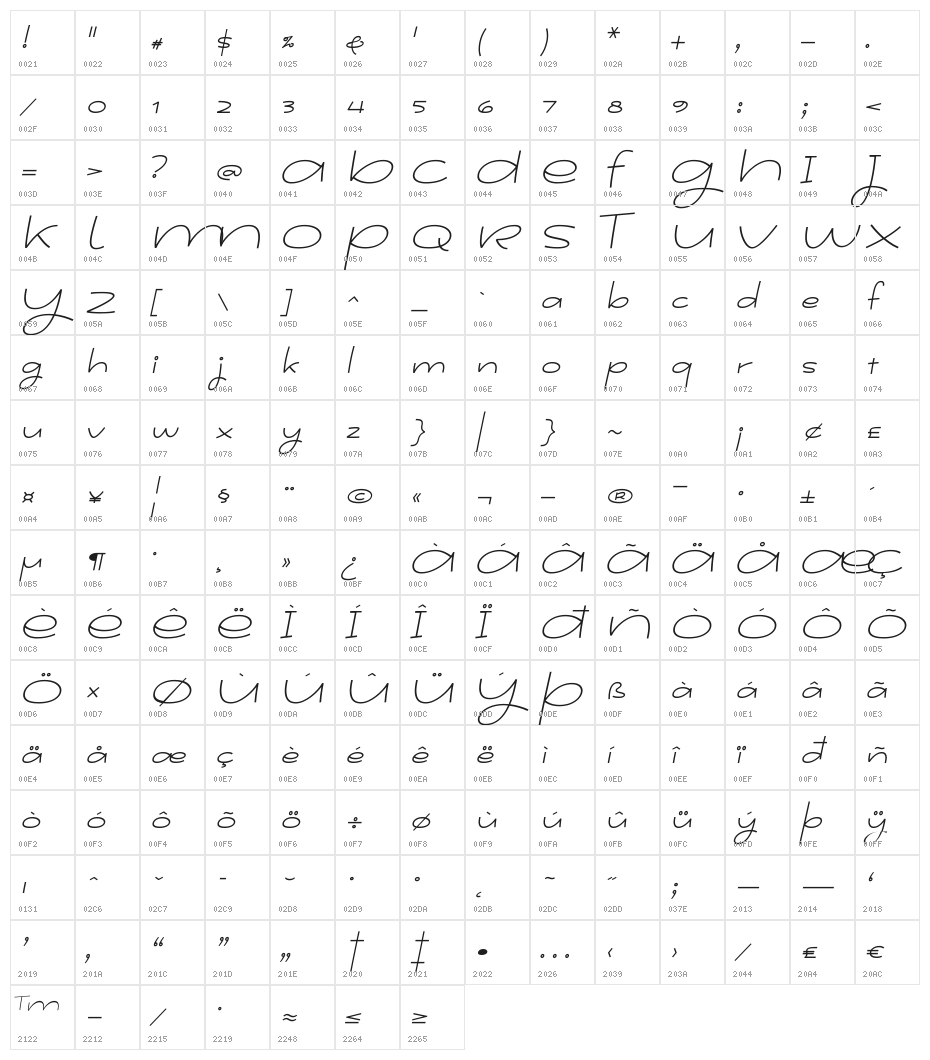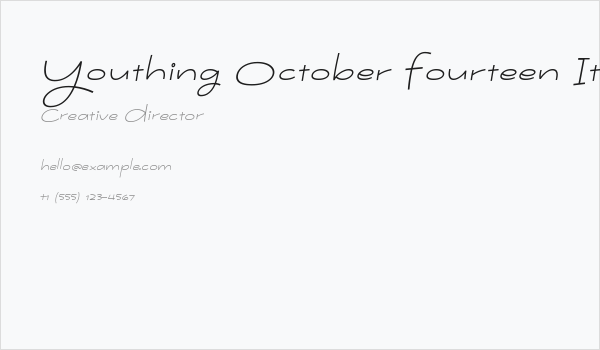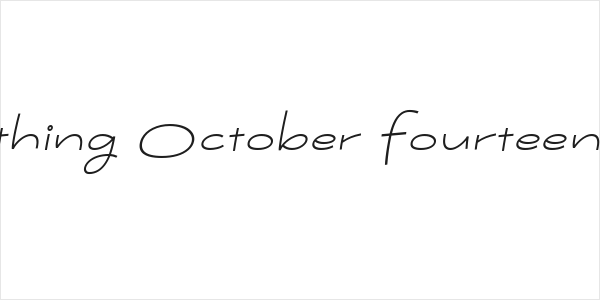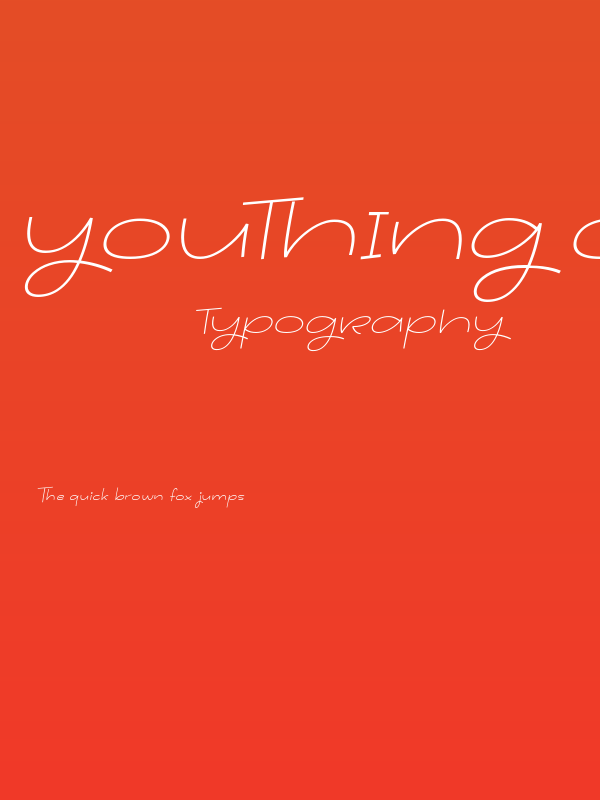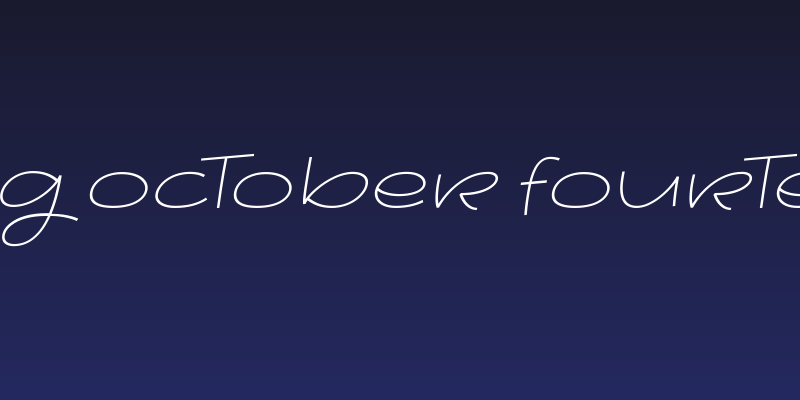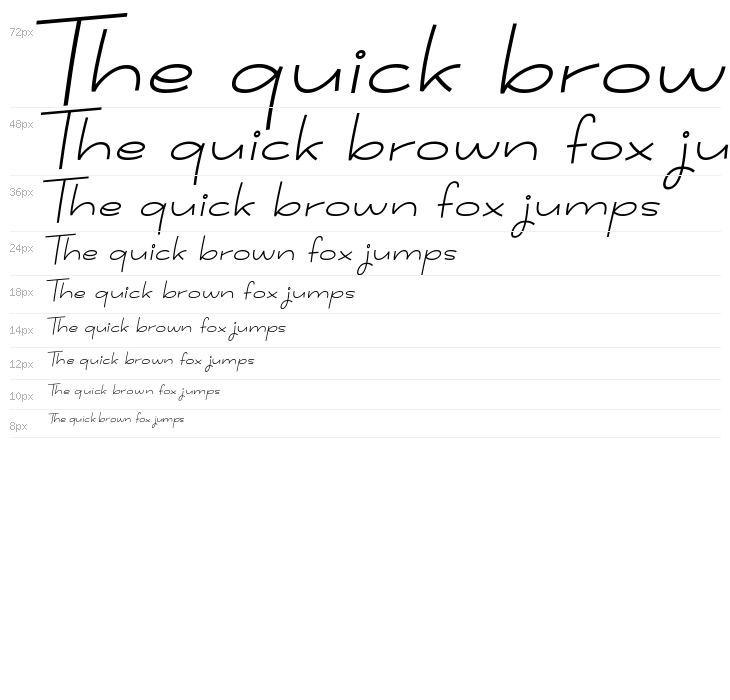
Youthing October Fourteen Italic Font
Youthing October Fourteen Italic Description
This font features a smooth, flowing script style that exudes elegance and sophistication. The characters are connected with a slight slant, giving it an italic appearance. The strokes are consistent in width, providing a harmonious and balanced look. The lowercase letters have a playful yet refined quality, while the uppercase letters maintain a sense of formality. The numerals are clear and legible, complementing the overall style. Special characters are thoughtfully designed to match the font's aesthetic, making it versatile for various uses.
| Use Case | Logos, Invitations, Stationery |
| Proposed Projects | Ideal for wedding invitations, greeting cards, elegant branding, and personal stationery. |